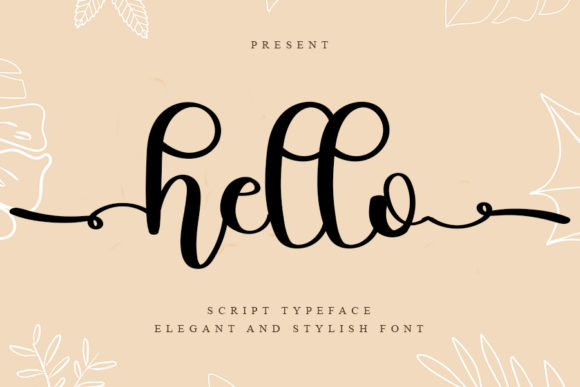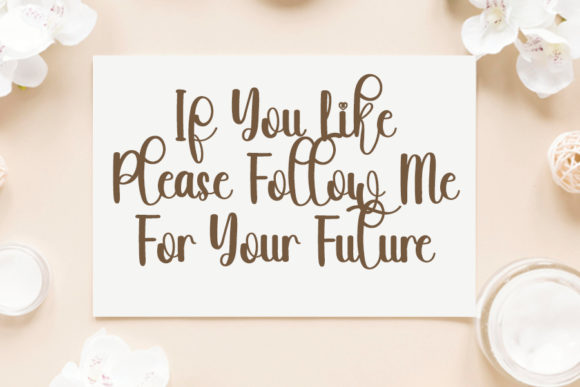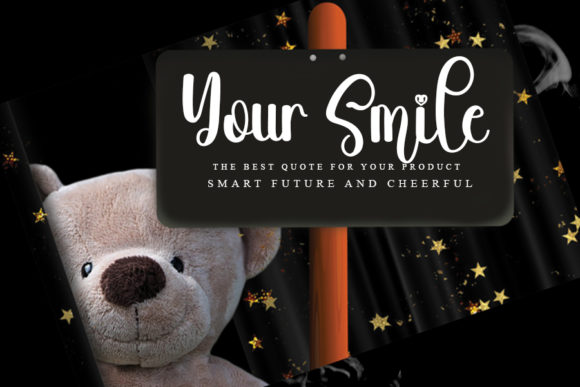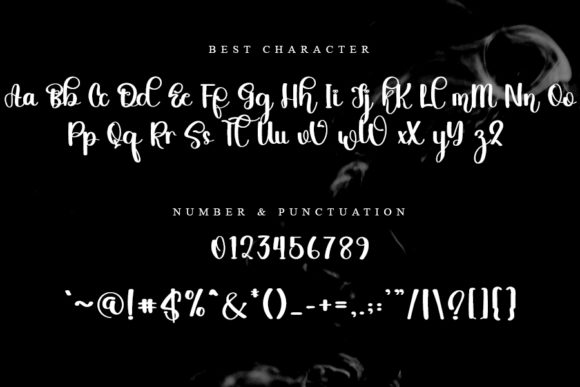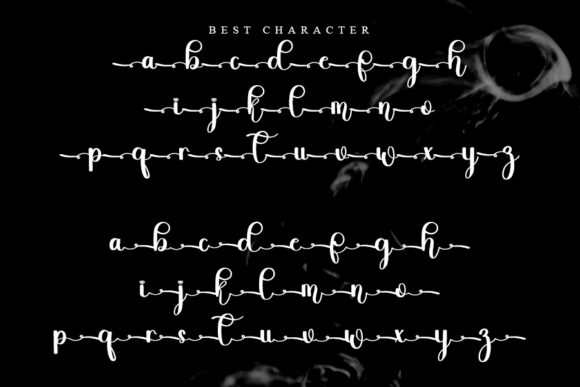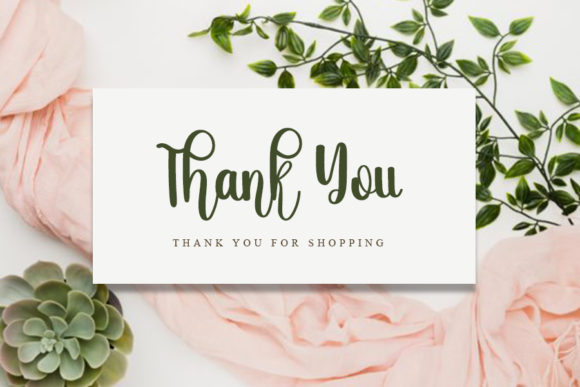
Hello Font
About Hello Font
Hello is a cute and round-lettered handwritten font. It can easily be matched to an incredibly large set of projects, so add it to your creative ideas and notice how it makes them stand out! This font is PUA encoded which means you can access all of the glyphs and swashes with ease!